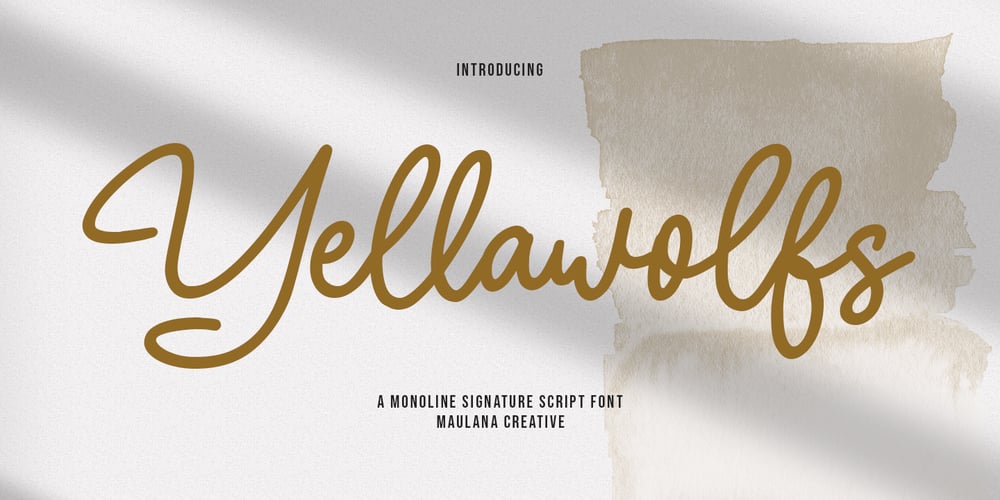
Yellawolfs Font Family was designed by Gilang Maulana and published by Maulana Creative. Yellawolfs contains 1 styles and family package options. Yellawolfs is a casual handwritten script font. With bold consist mono-line stroke, fun character with a bit of ligatures and alternates. To give you an extra creative work. Yellawolfs font support multilingual more than 100+ language. This font is good for logo design, Social media, Movie Titles, Books Titles, a short text even a long text letter and good for your secondary text font with sans or serif. Make a stunning work with Yellawolfs font.Cheers,Maulana Creative